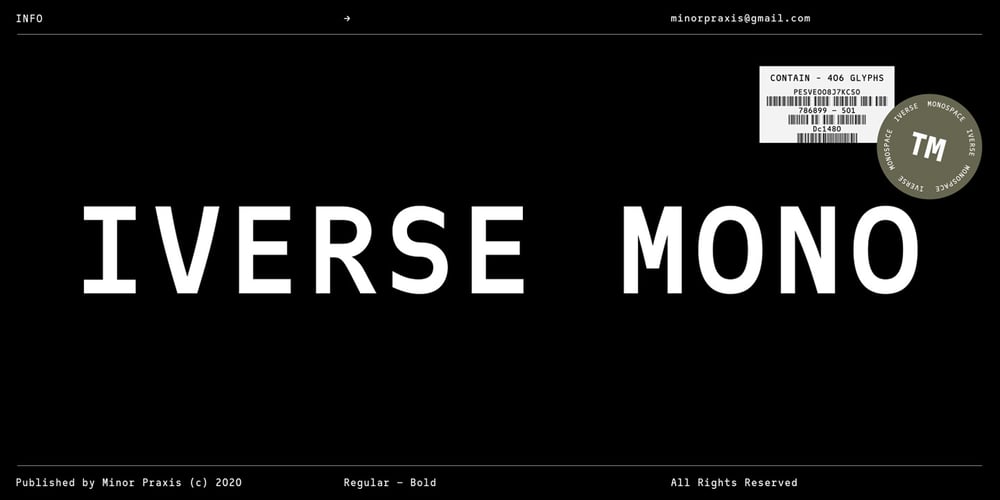
Iverse Mono Font Family was designed by Rully Prayogi and published by Minor Praxis. Iverse Mono contains 2 styles and family package options. Iverse is a monospace font that come with 2 (two) different type of styles, Regular and Bold. The sans serif based structure is clean and versatile and perfect for body copy and display.Suitable for codings, captions, description details, layouts, and posters.